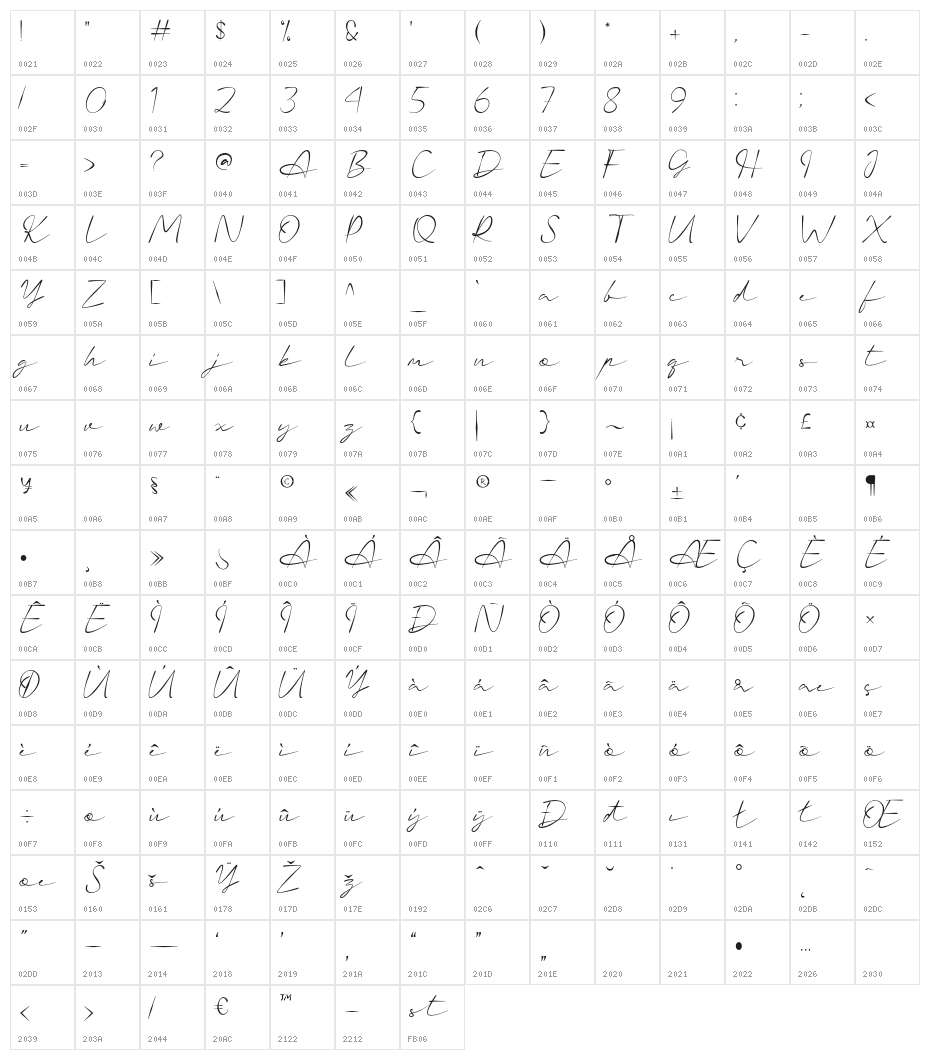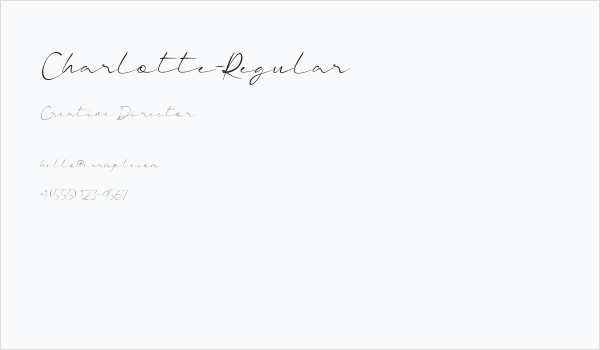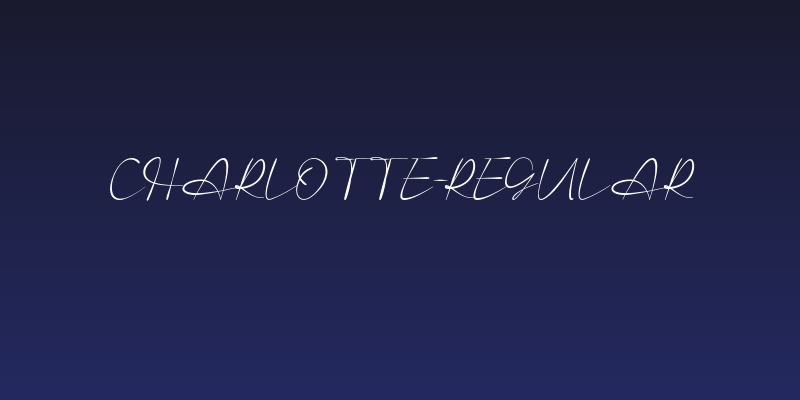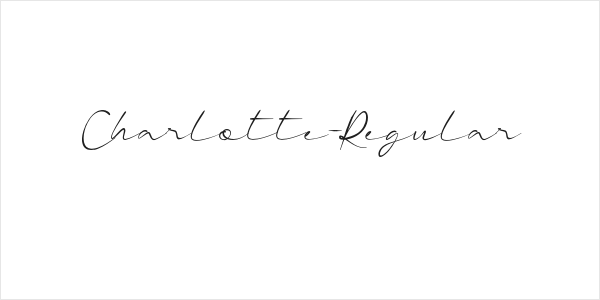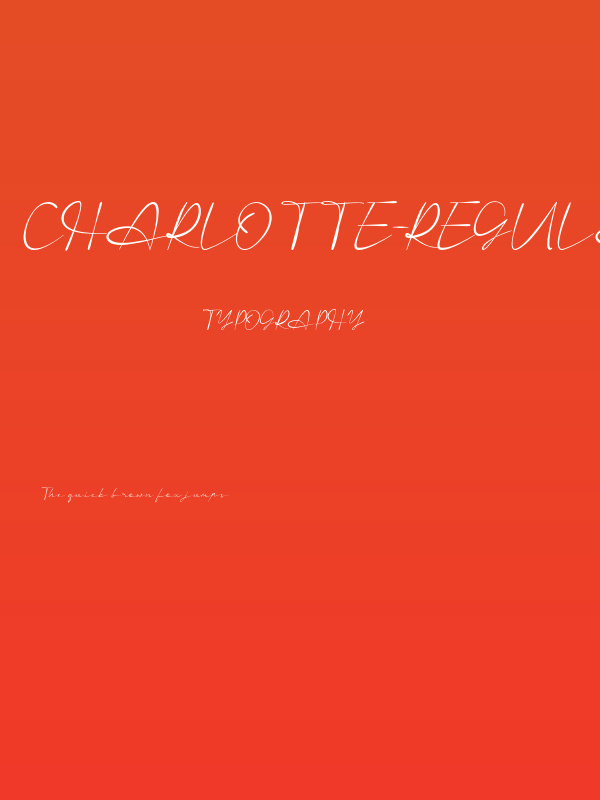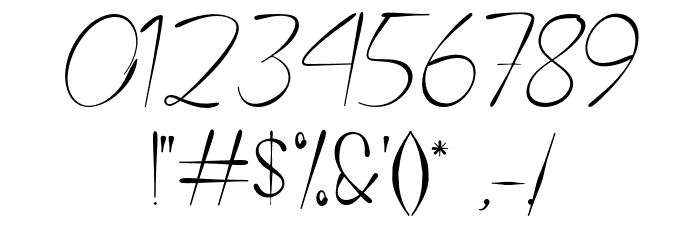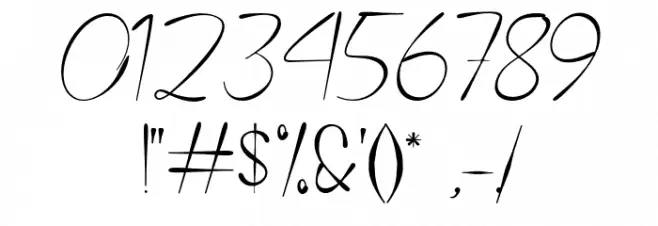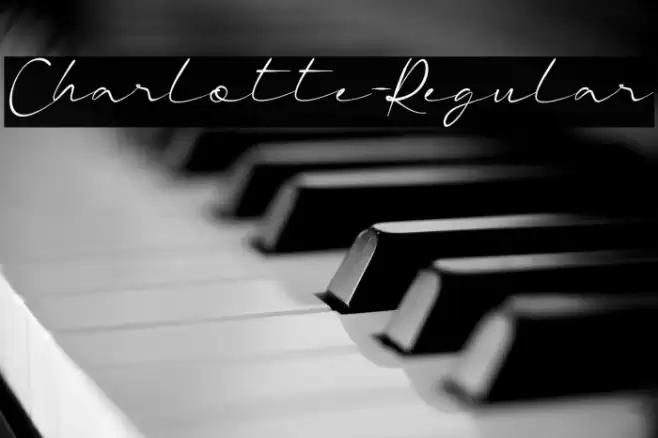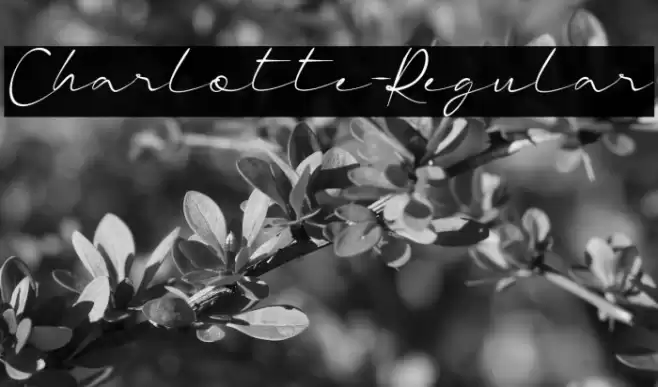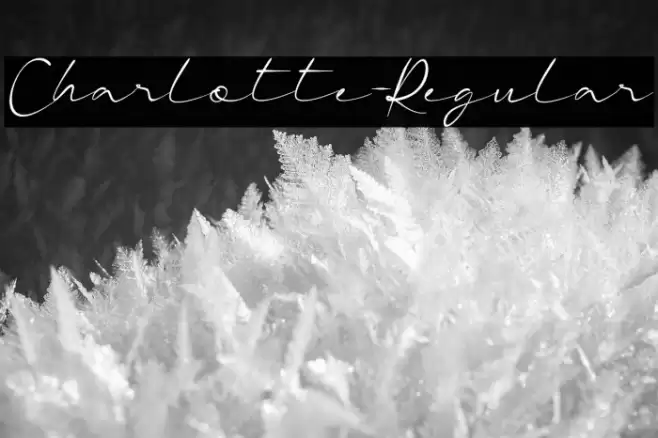
Charlotte-Regular Font
| Familia fontului | Charlotte |
| Caz de utilizare | Logos, Invitations, Social Media |
| Proiecte propuse | Ideal for wedding invitations, personal branding, elegant logos, and stylish social media graphics. |